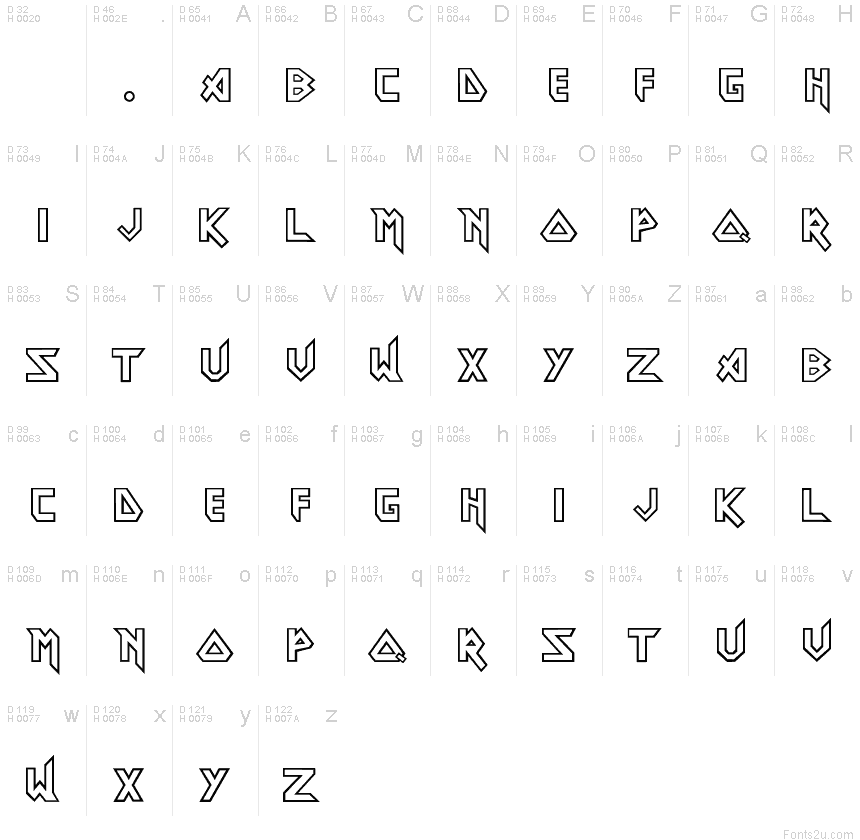
Eddie
Eddie font by Digital Graphic Labs is a free techno display typeface with a striking hollow structure that looks like it’s been bent from neon wire. Each letter locks together with angular cuts and crisp corners, creating a rhythmic, maze-like texture that grabs attention even at a glance. It feels both retro and futuristic, like vintage arcade titles lit up on a dark screen.
Using Eddie, this free font shines on game logos, sci‑fi posters, rave or EDM flyers, tech event titles, and bold apparel graphics. Its open, outlined shapes love large sizes where the inner space can really breathe. For supporting text, pair Eddie with a clean geometric sans in a lighter weight and keep the body copy small and quiet to let this techno typeface stay in the spotlight.